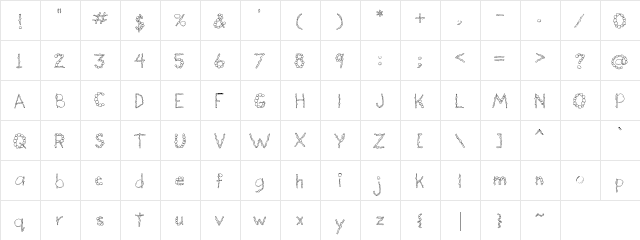
LD Sticks 'n' Stones Regular
Design Context for LD Sticks 'n' Stones Typeface
LD Sticks 'n' Stones is a composed and adaptable typeface that performs quietly and consistently across a wide range of design contexts.